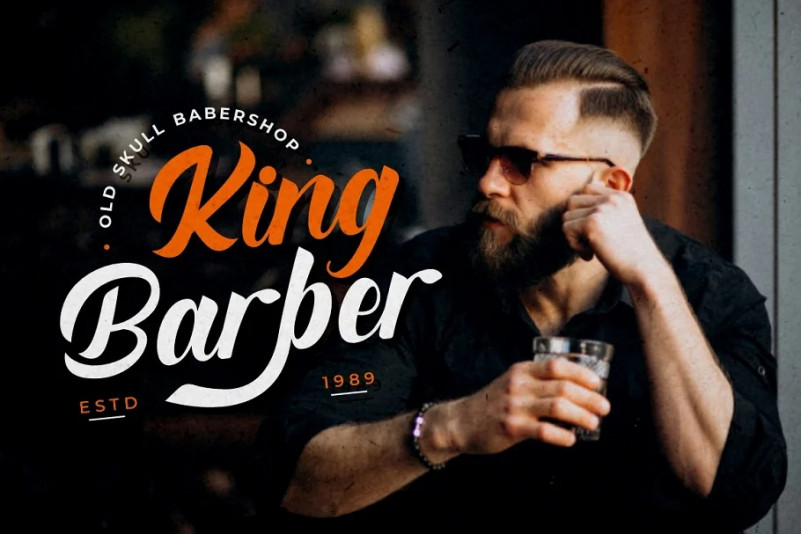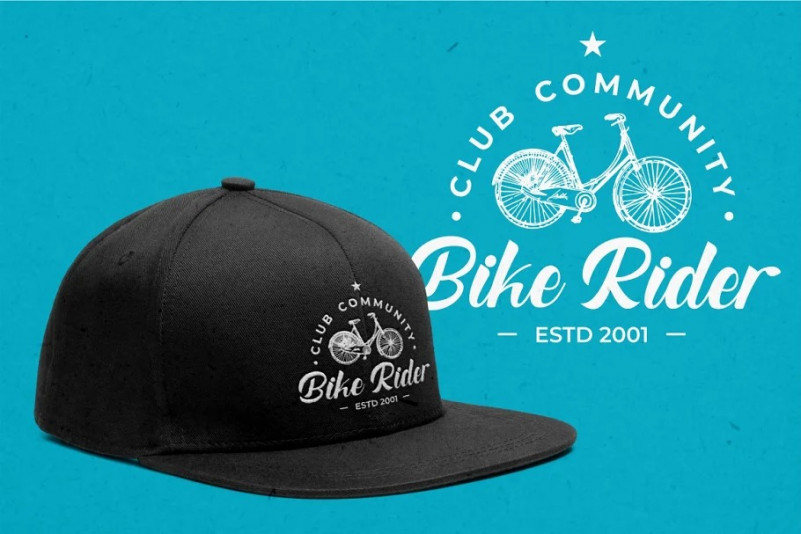
The Knight Bold Script Font
This is a new variant of handcrafted script typeface. It’s designed and shared by PutraCetol Studio. This font is inspired by magazine titles and posters as well as streetwear lettering styles. This font has bold and modern characteristics, so it’s also perfect for logos.
Also ideal for logos, badge, label, apparel, club, event, handwritten quotes, product packaging, header, poster, merchandise, social media & greeting cards.